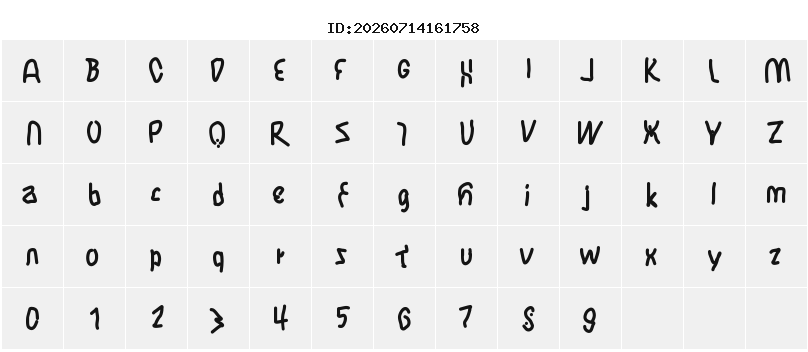
• Font Name: JBMFlimsy
• Full Font Name: JBMFlimsy
About JBMFlimsy.ttf
JBMFlimsy.ttf is a modern, elegant sans-serif font designed for ultimate readability and visual harmony. Perfect for branding, headlines, web design, and print materials.